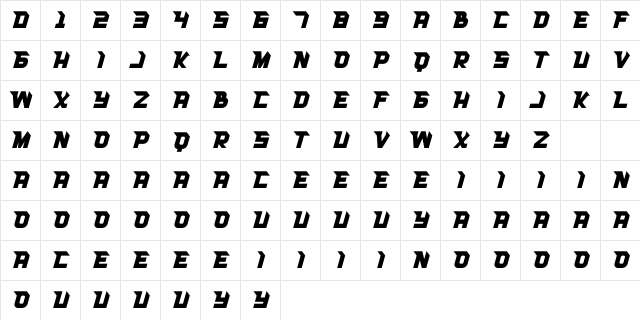
RACE SPACE REGULAR 1
Design Context for RACE SPACE REGULAR
RACE SPACE REGULAR is a composed and adaptable typeface that performs quietly and consistently across a wide range of design contexts.
Pro Tip: Use RACE SPACE REGULAR in both headline and body roles to test its range before committing to a single application.